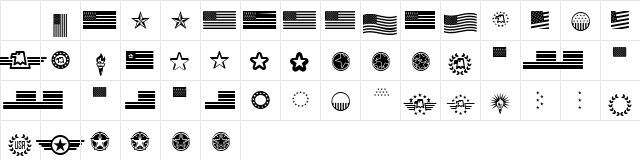
Complete American Spirit STF Regular glyph index. Displaying only characters natively supported by American Spirit STF Regular font.
American Spirit STF is a composed and adaptable typeface that performs quietly and consistently across a wide range of design contexts.